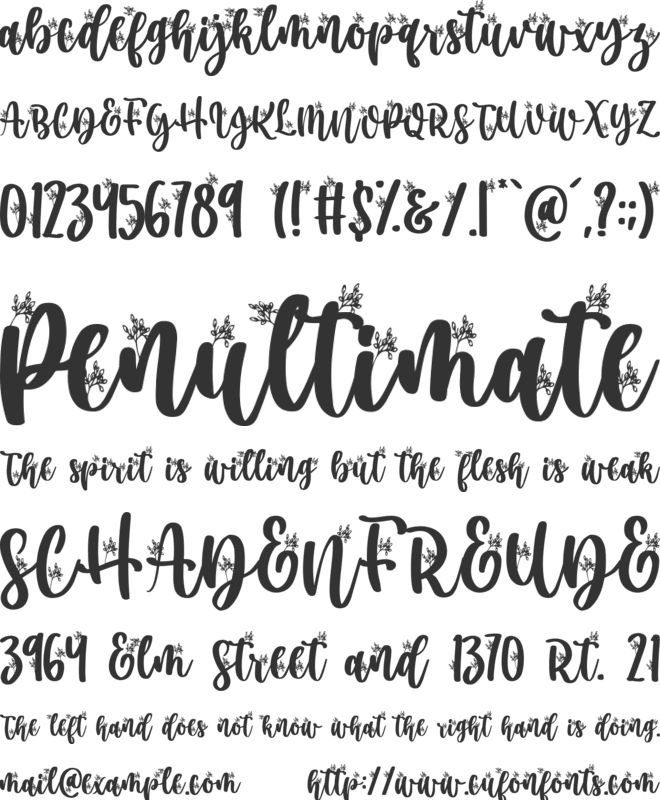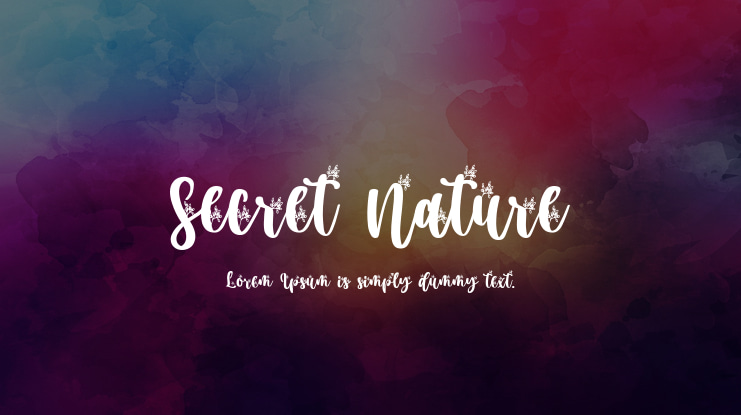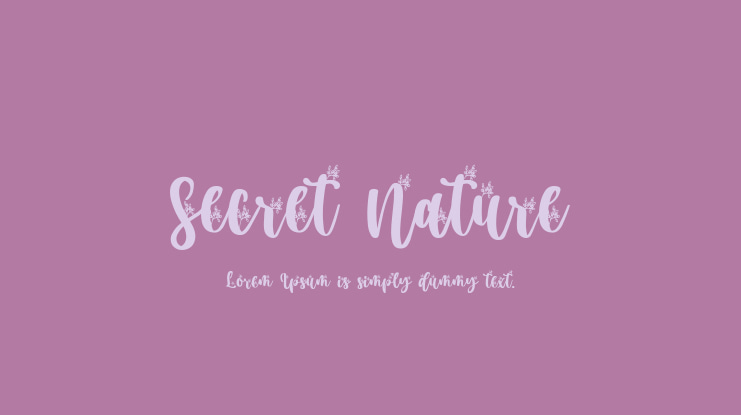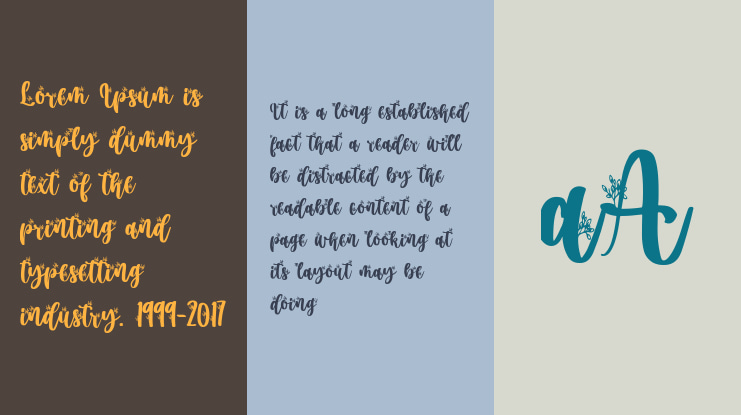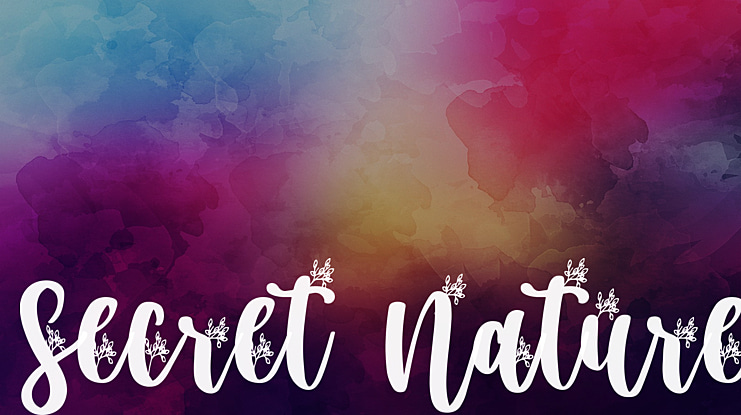
Secret Nature Font
This enchanting font will turn any creative idea into a true standout. Perfect fit for all of your logos, branding, social media, etc.